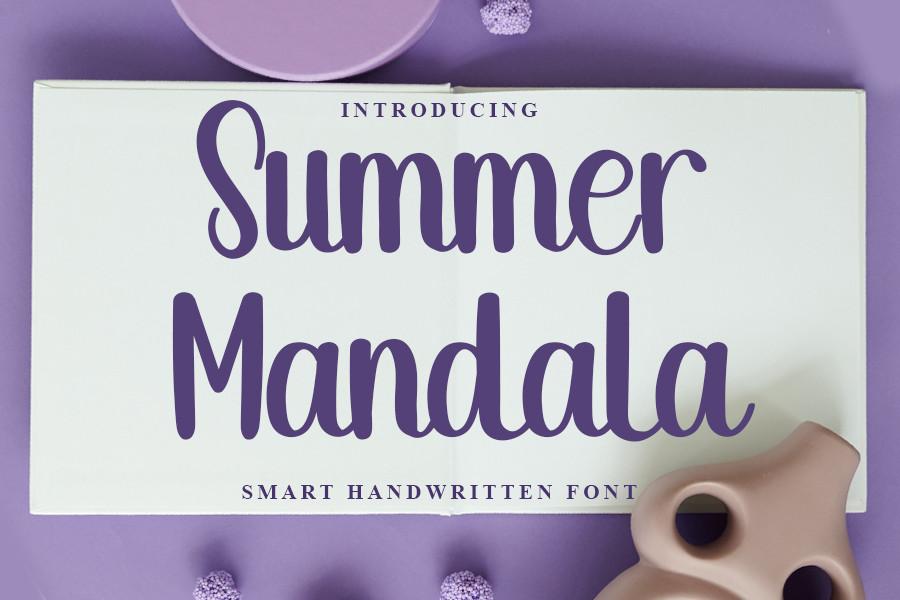
Summer Mandala Font Description
Summer Mandala is a beautiful and charming handwritten font. It is suitable for your various business needs, including shirt designs, logos, banners, and others. Apart from that, this font is easy to use on Windows and Mac OS devices. The beauty of this font will make your business look beautiful in the market.